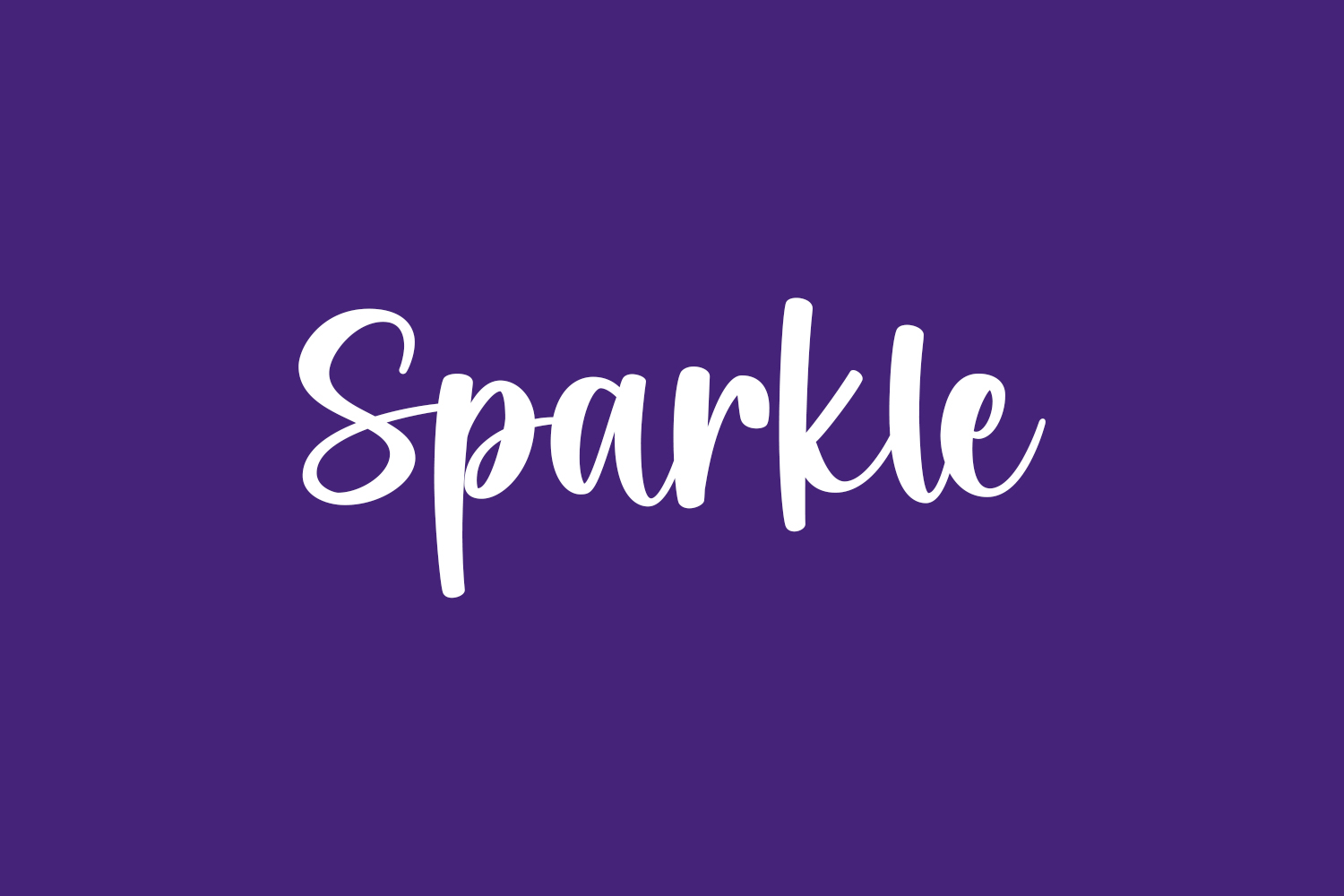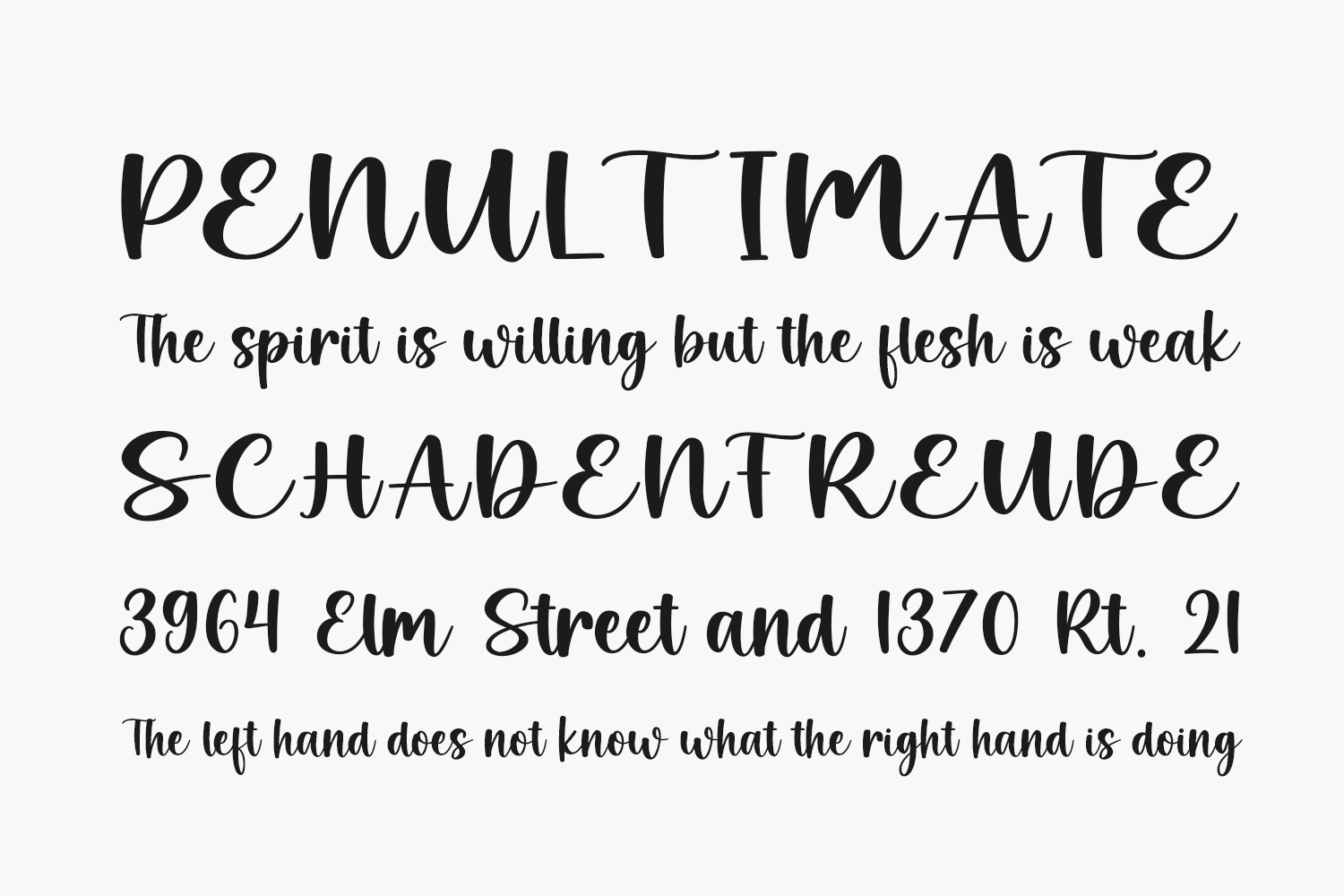
Sparkle Free Font is a fine and elegant script typeface that exudes sophistication and class. Its delicate letters and elegant curves give it a refined and distinguished look that is perfect for formal invitations, wedding stationery and luxury branding. The font’s smart and sophisticated design makes it an ideal choice for any project that requires a touch of class and elegance. The font’s unique and elegant design makes it stand out from the crowd, it’s perfect for creating stylish and high-end designs that will be sure to impress. From fashion and beauty branding to social media and online marketing, Sparkle Free Font is the perfect choice for any project that requires a touch of luxury. Download it now and add a touch of class to your designs.